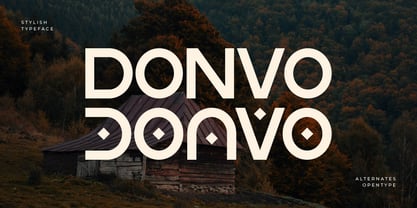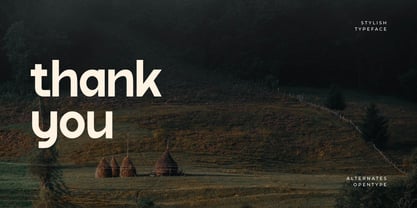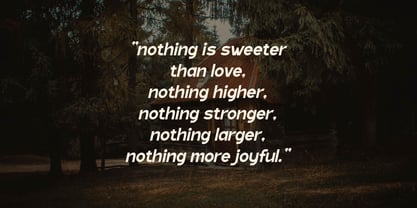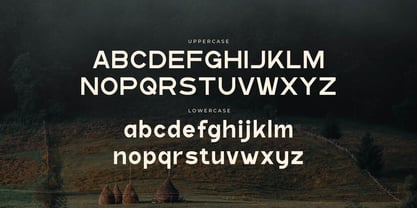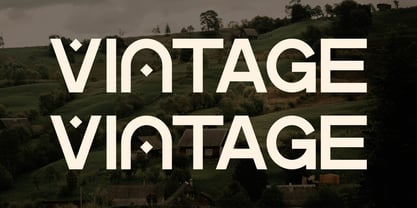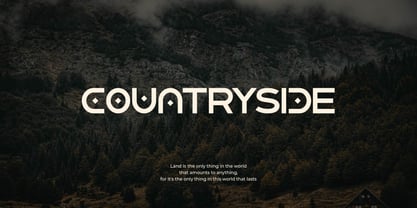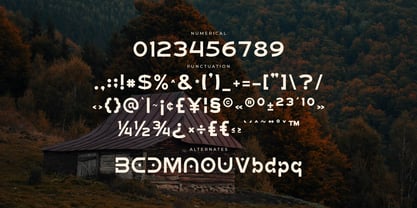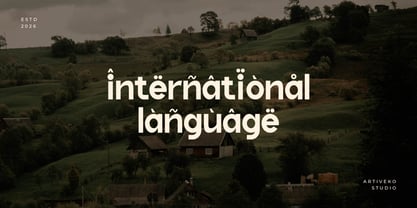
Donvo
by Artiveko
The Donvo Font Family was designed by Iwan Alwan and published by Artiveko. Donvo contains 2 styles and family package options. More about this family
Donvo is a unique medieval-inspired sans serif typeface that seamlessly blends historical character with modern simplicity. Featuring distinctive letterforms influenced by gothic and medieval styles, Donvo delivers a bold and artistic personality while maintaining a clean and readable structure. This typeface is perfect for a variety of applications, including fantasy projects, historical themes, book covers, posters, branding, logos, and creative design. Donvo offers a rare combination of old-world charm and contemporary clarity, making it ideal for designers seeking to create standout visuals with a strong identity. Whether used for storytelling, themed branding, or artistic layouts, Donvo brings a timeless yet modern feel to your typography. More than just a font, Donvo is a fusion of history and modern design, making it a versatile choice for any creative endeavor.
Designers: Iwan Alwan
Current Foundry: Artiveko